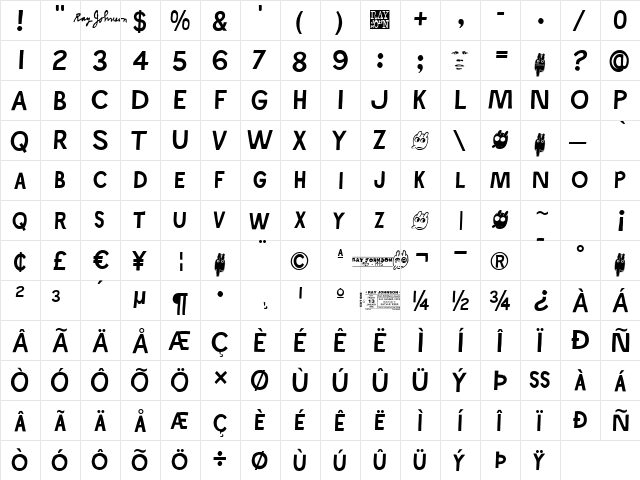
Ray Johnson Regular
Design Context for Ray Johnson Typeface
Ray Johnson takes a measured approach to typography — its balanced proportions and neutral character make it a reliable workhorse for both digital and print work.